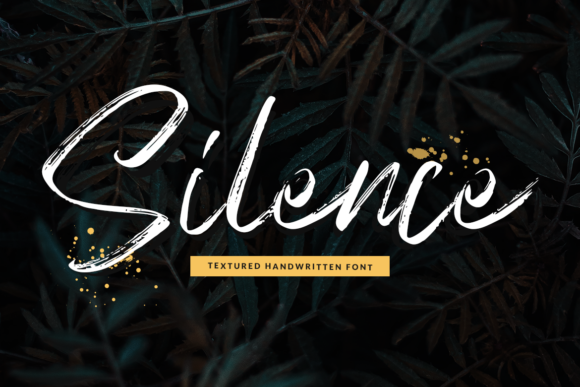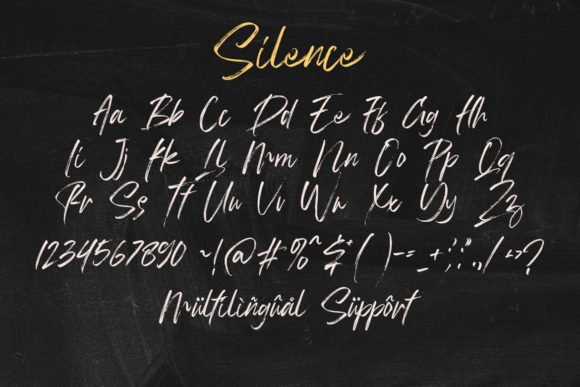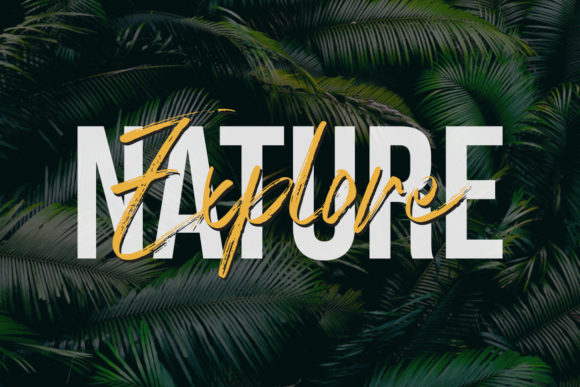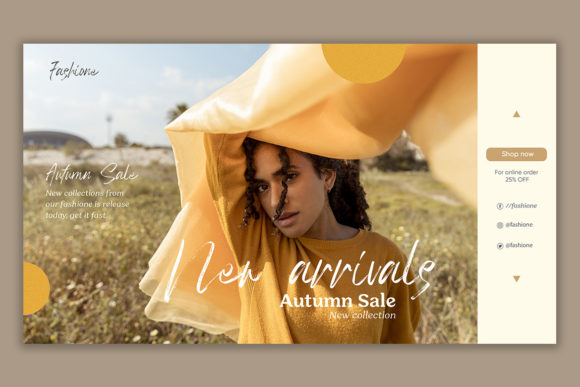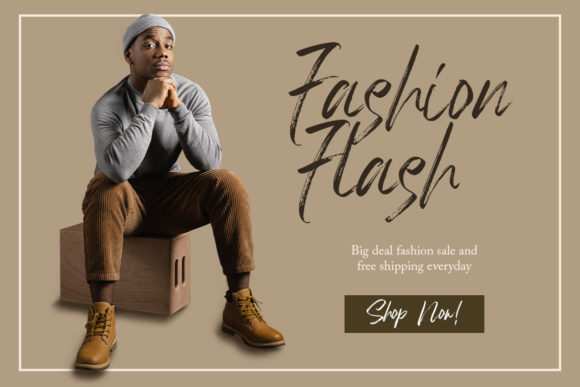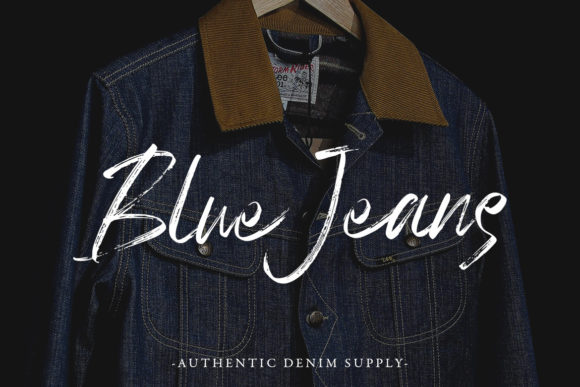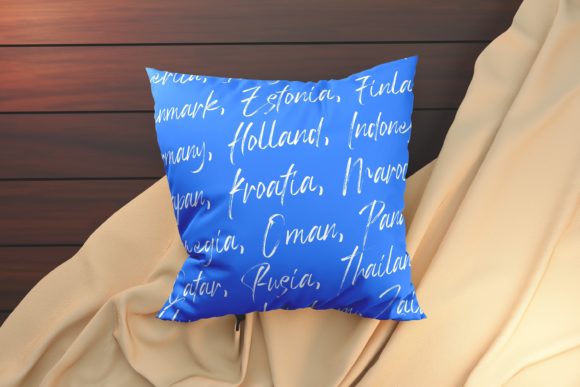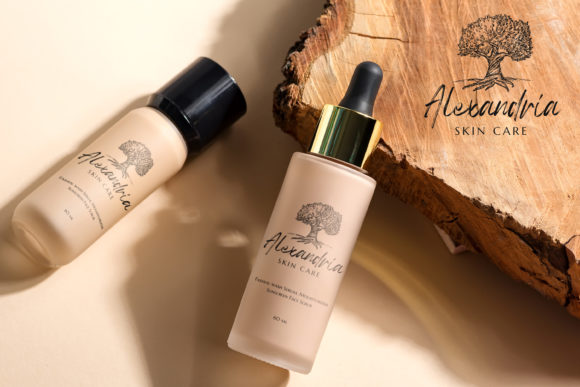
Silence Font
About Silence Font
Silence is a lovely brushed script font. Suitable to a wide variety of designs due to its neat and simple style, this font has the potential to become your favorite go-to font, no matter the occasion!